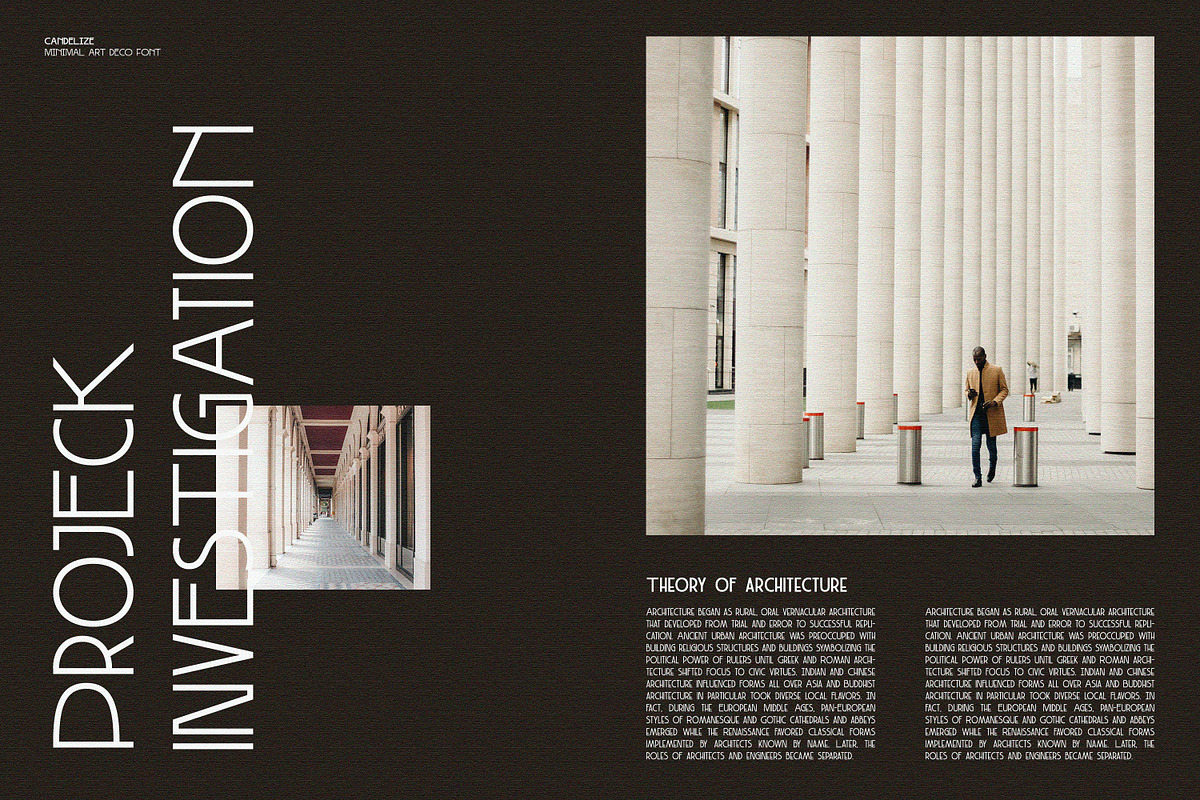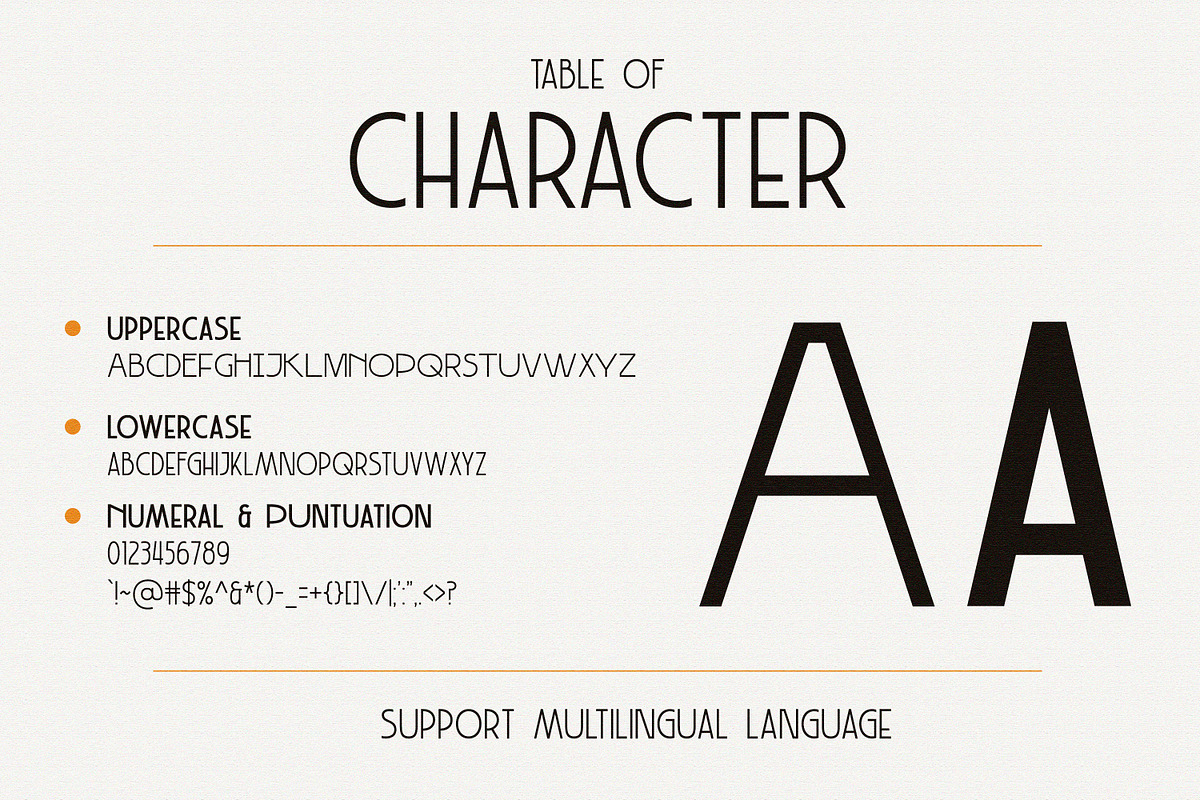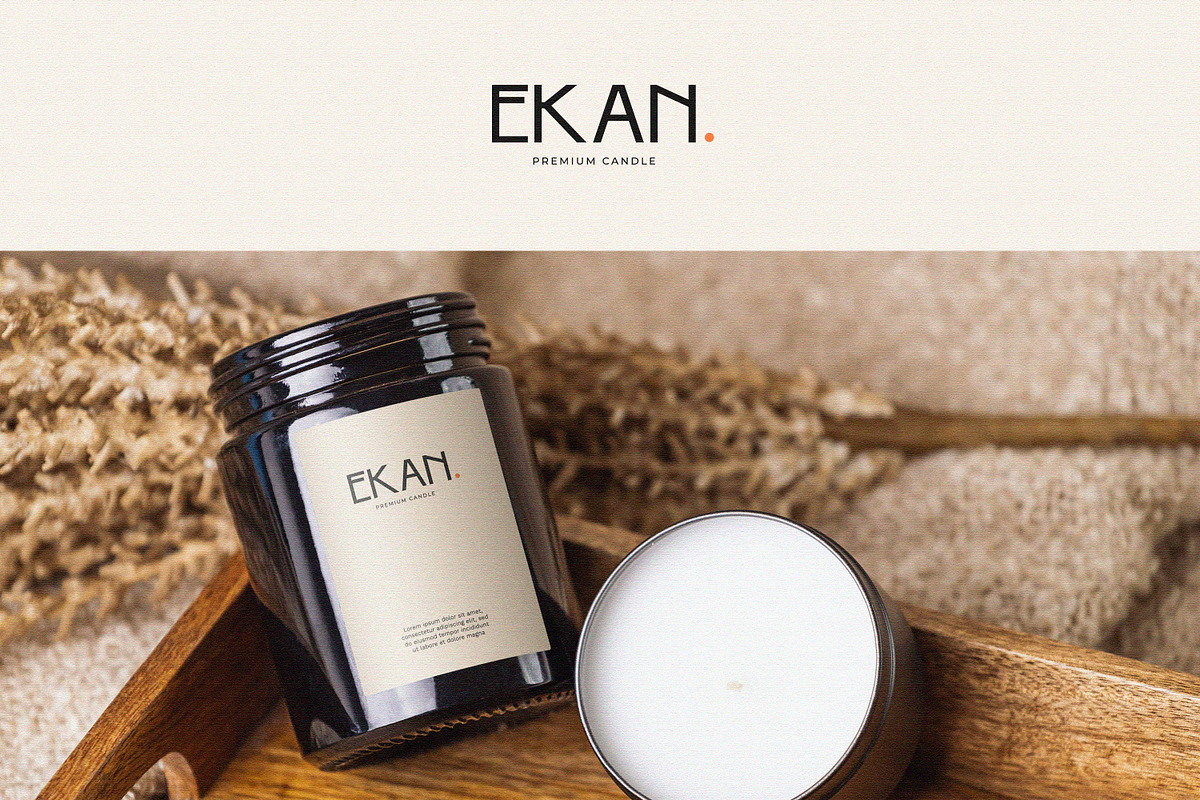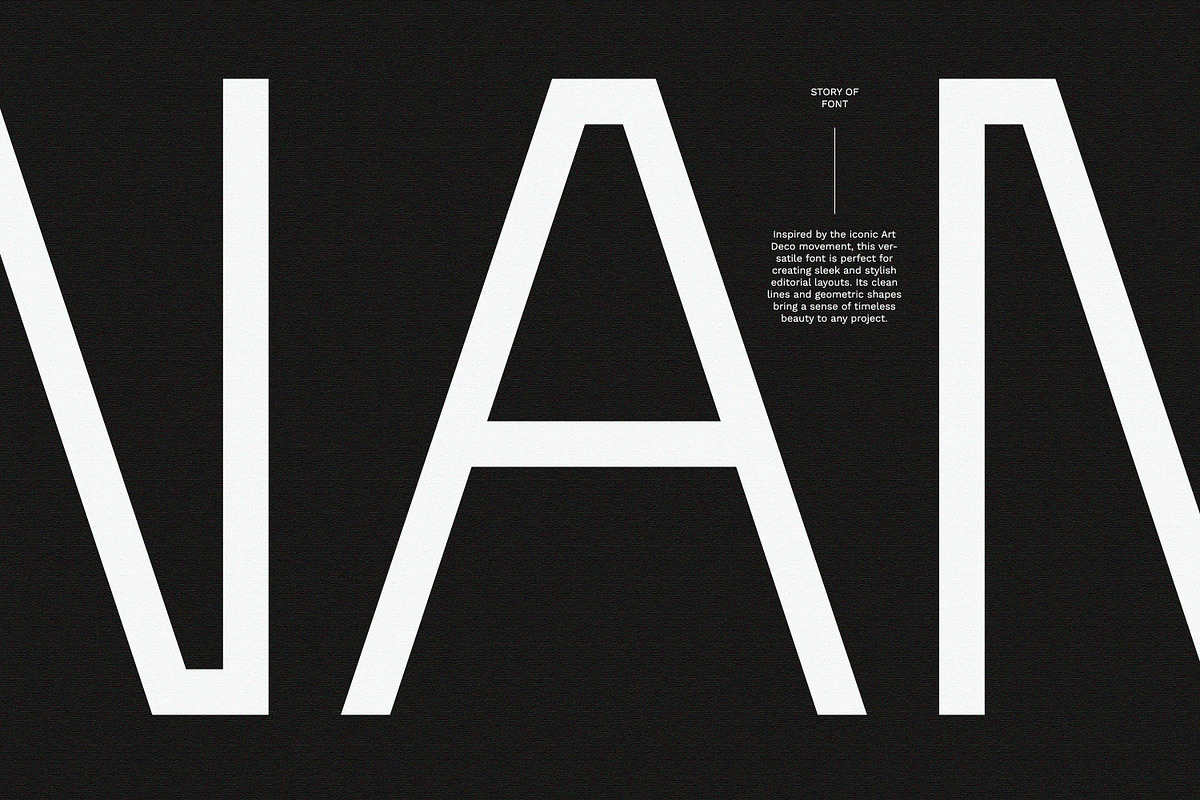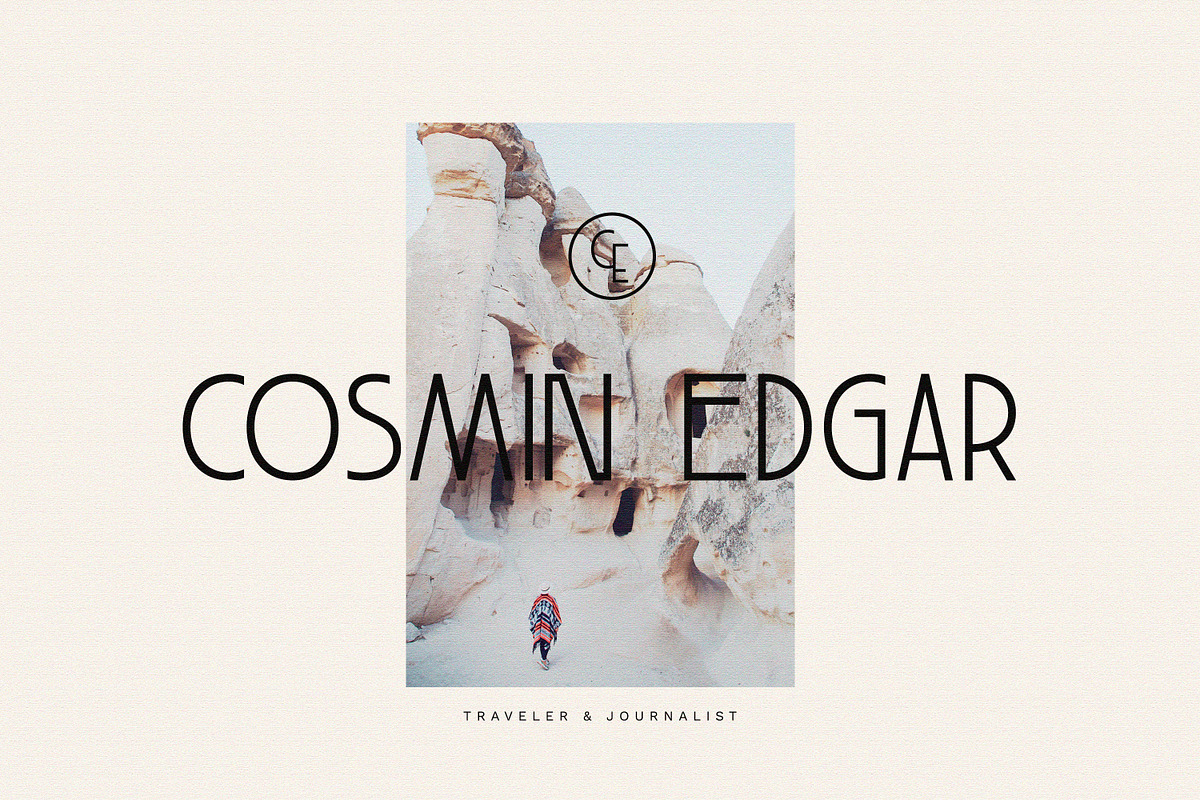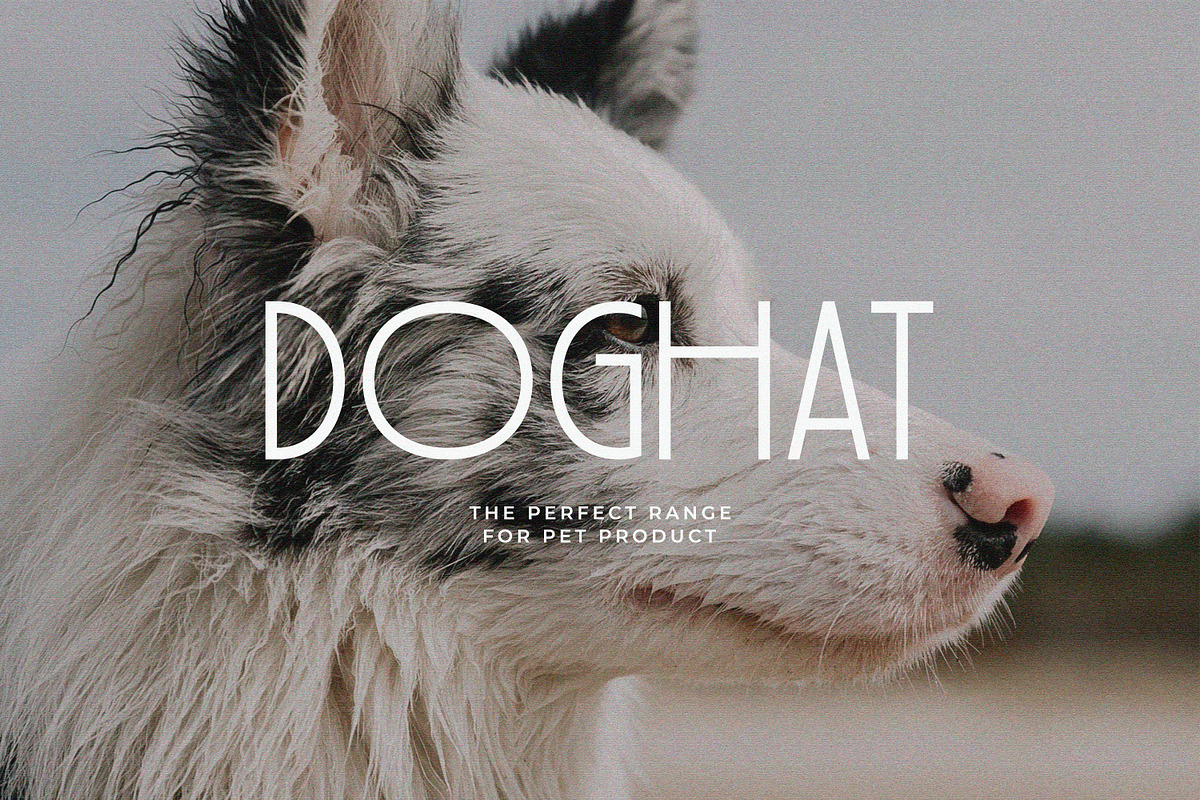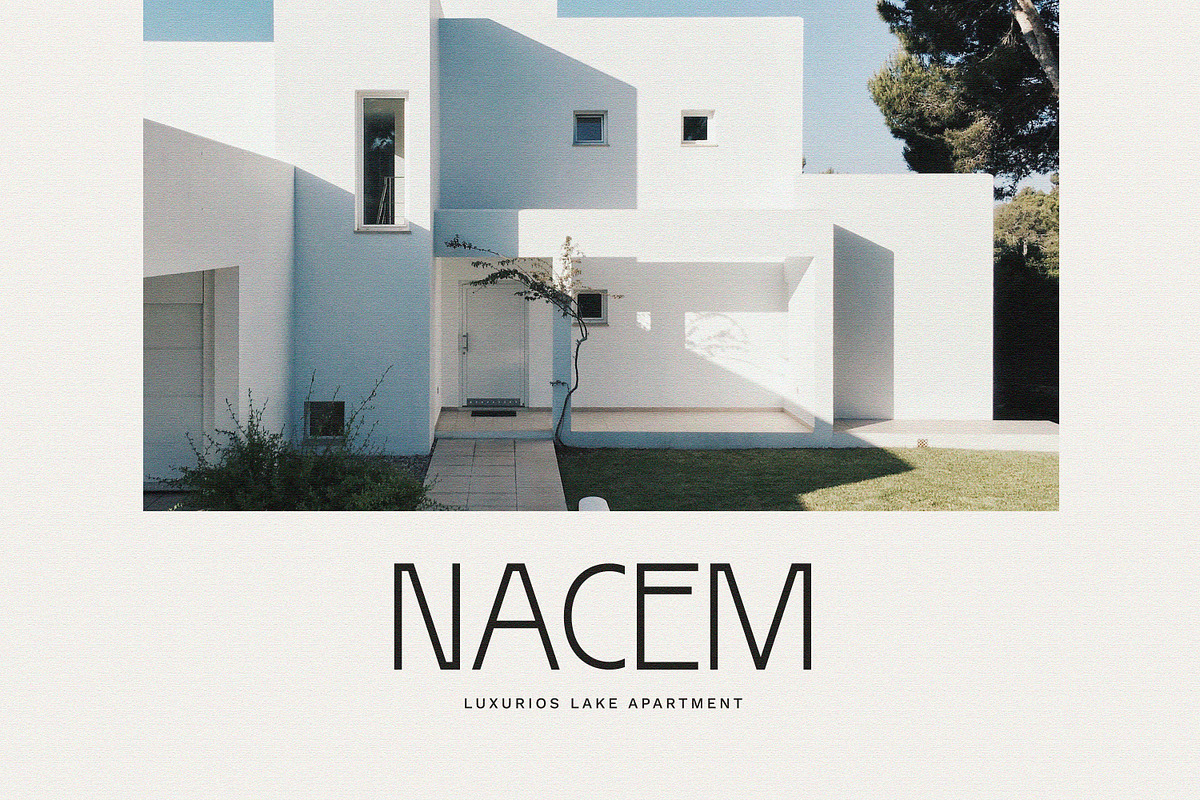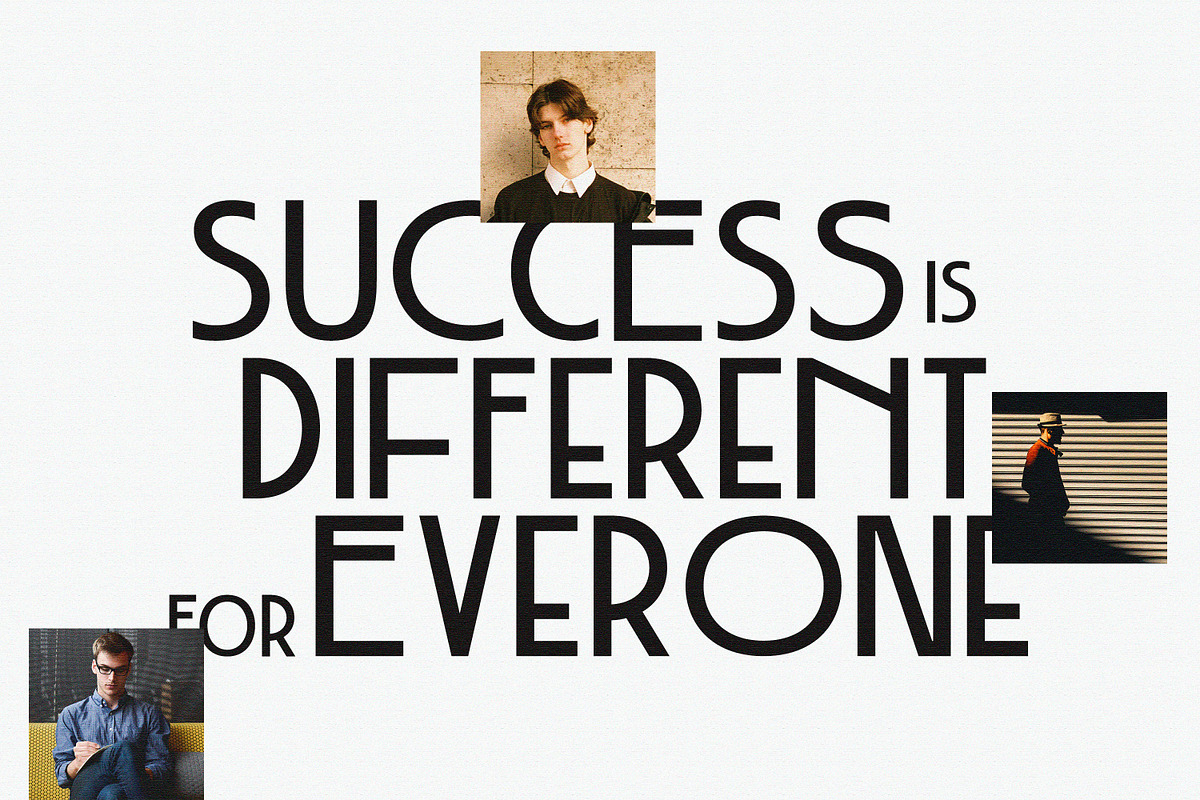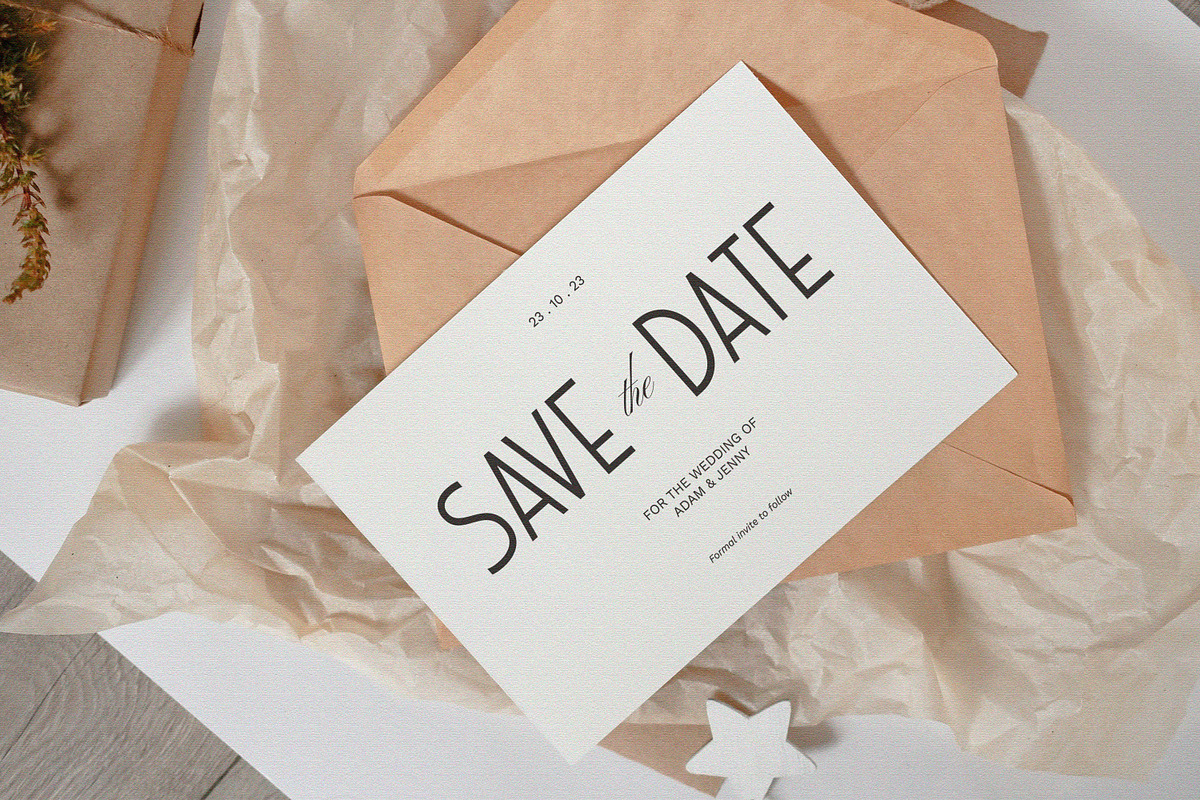
Candelize - Minimal Art Deco Font
Introducing our Art Deco Font: a classic yet modern and elegant typeface that adds a touch of sophistication to your logo designs. Inspired by the iconic Art Deco movement, this versatile font is perfect for creating sleek and stylish editorial layouts. It's clean lines and geometric shapes bring a sense of timeless beauty to any project.
Whether you're designing a magazine, website, or branding materials, our Art Deco Font Editorial will elevate your work to new levels of elegance and professionalism. Embrace the allure of Art Deco and make a bold statement with our captivating font.